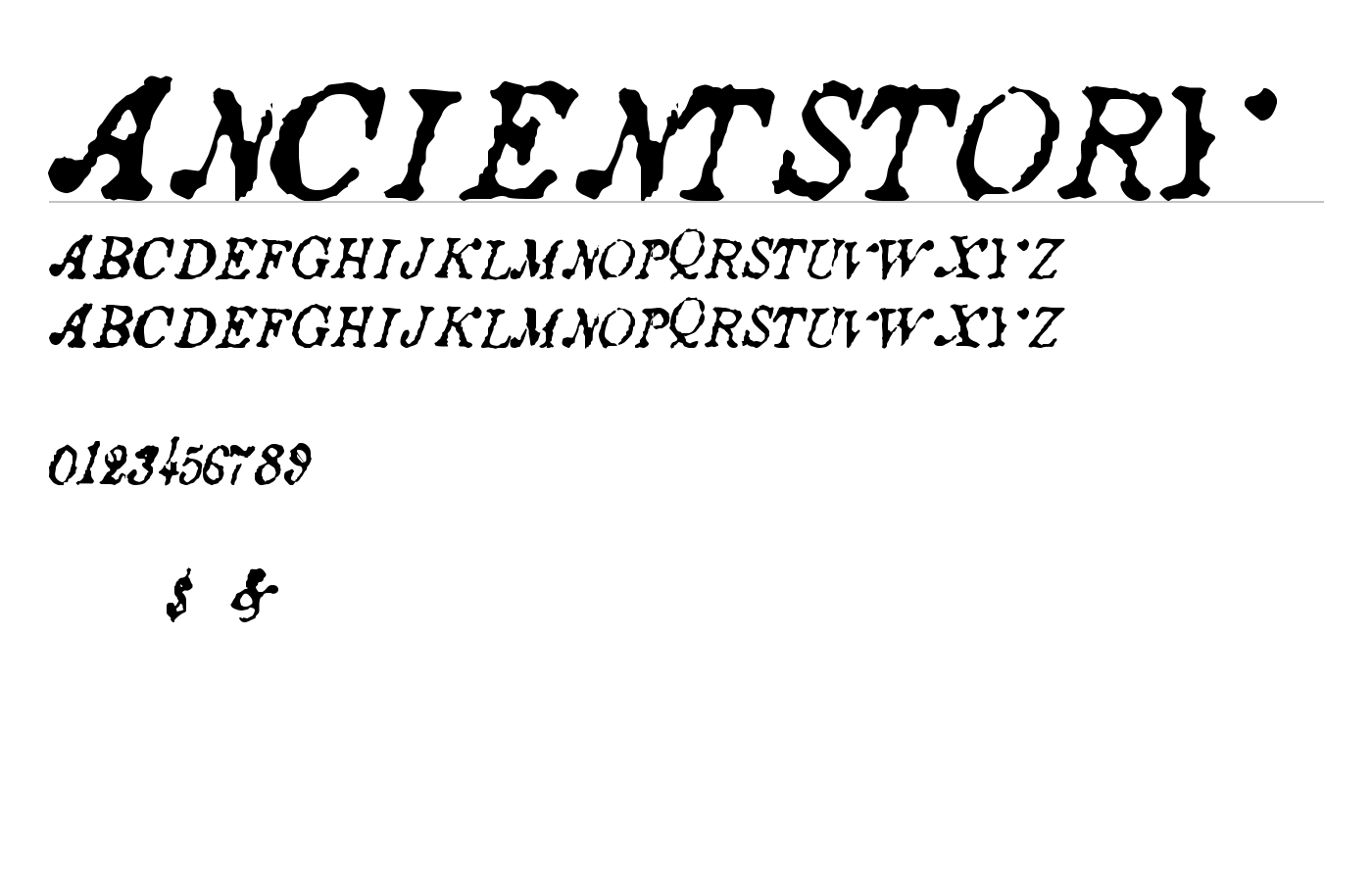
AncientStory is a distinctive serif font that evokes a vintage and historical feel with its rough, textured strokes and irregular edges, reminiscent of ancient script or old print styles. Its moderately high contrast and bracketed serifs give it an aged, handcrafted appearance, perfect for projects seeking to convey tradition, mystery, or a sense of history. This font works beautifully for book covers, movie titles, or themed branding where an authentic, storytelling atmosphere is desired.
AncientStory Font
About AncientStory Font
| Font family | AncientStory Font |
| Designer | Max Infeld |